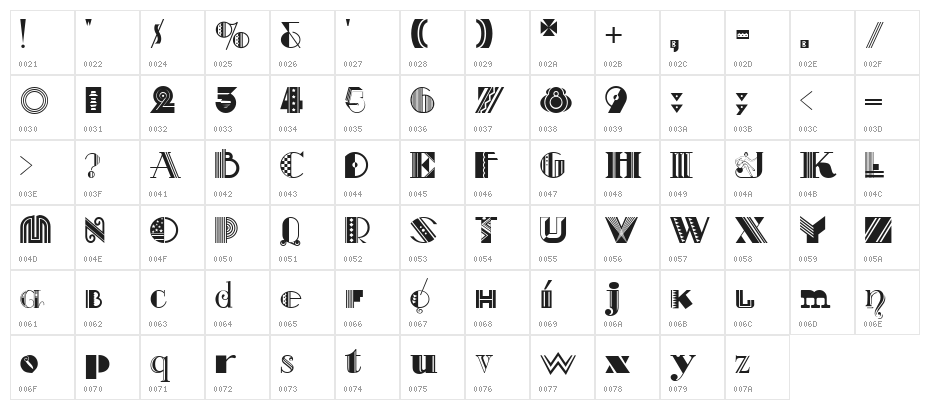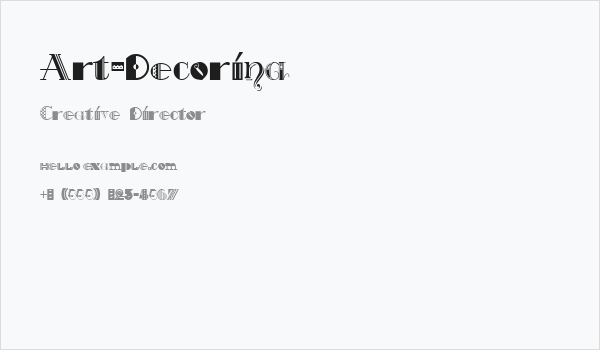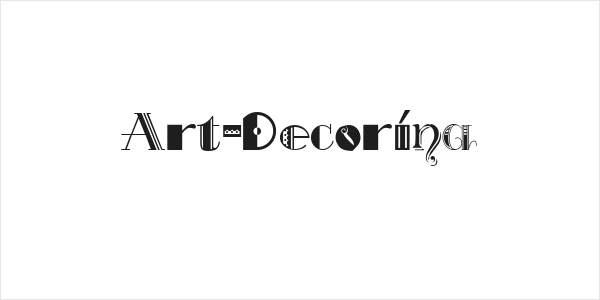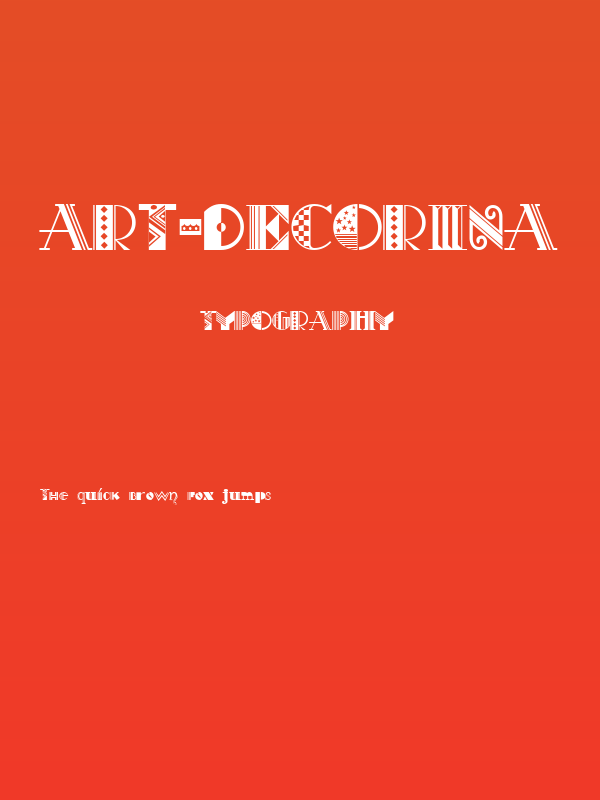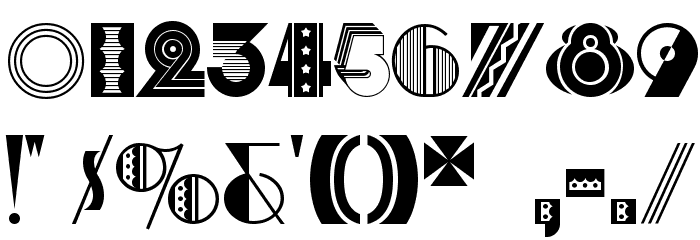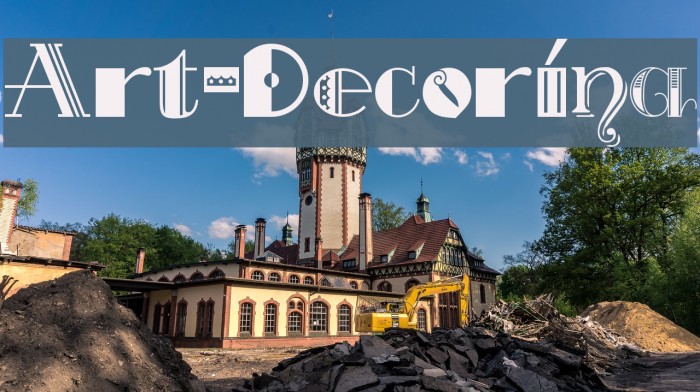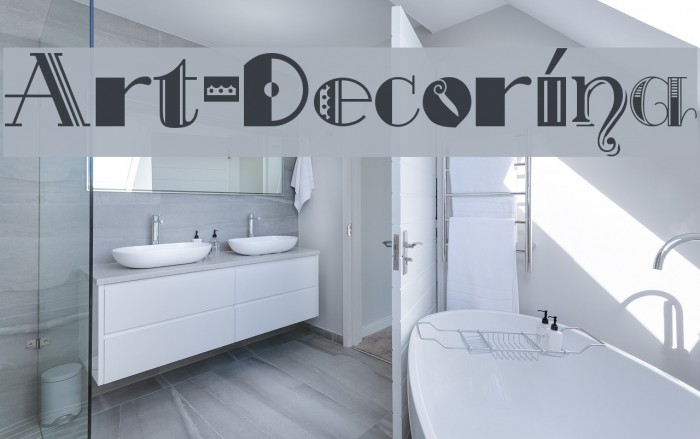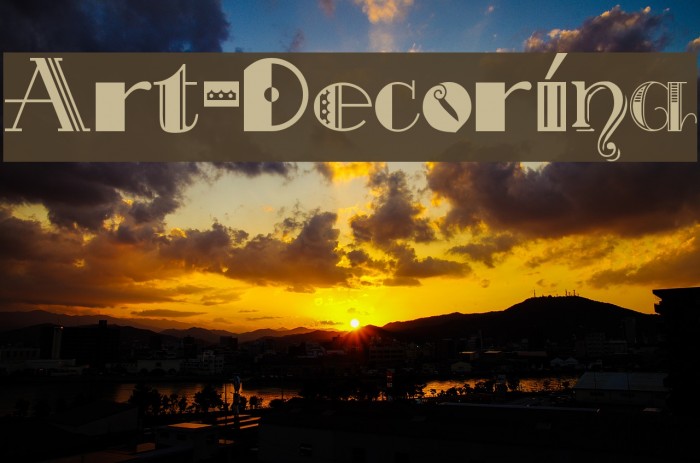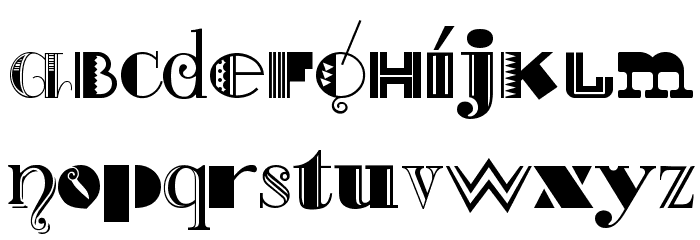
Art-Decorina Font
Art-Decorina Description
This font is a striking example of decorative typography, featuring a bold and artistic design with intricate patterns and embellishments. Each character is uniquely styled, incorporating elements such as stripes, dots, and geometric shapes, which give it a distinct Art Deco flair. The uppercase letters are particularly elaborate, with some incorporating additional motifs like stars and lines, while the lowercase letters maintain a more streamlined yet still decorative appearance. The numerals and special characters continue this theme, offering a cohesive and visually engaging set that stands out in any design.
| Categories | Art Deco |
| Overall Style | Vintage, Decorative |
| Proposed Projects | Ideal for vintage-themed posters, branding, and editorial design where a touch of elegance and flair is desired. |